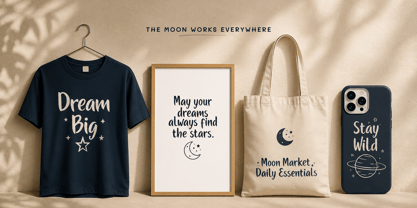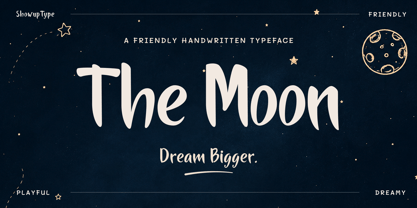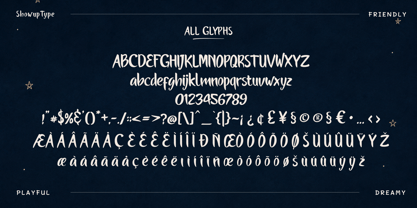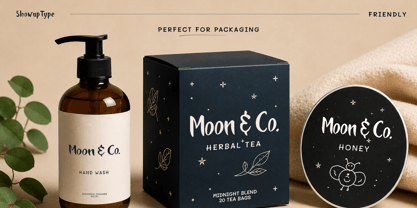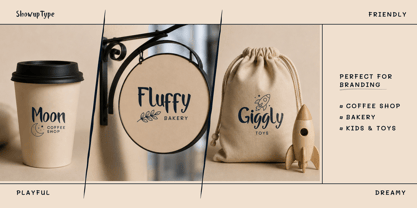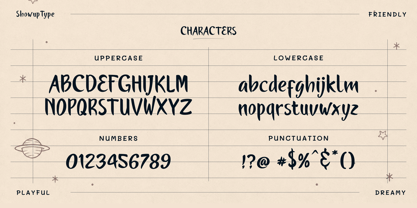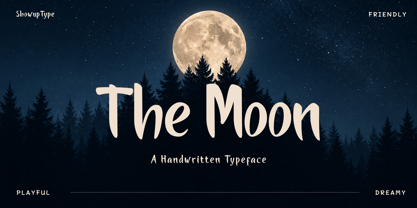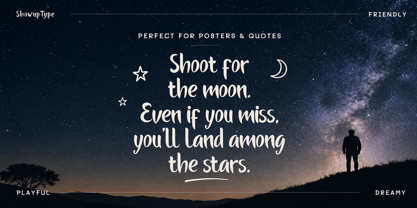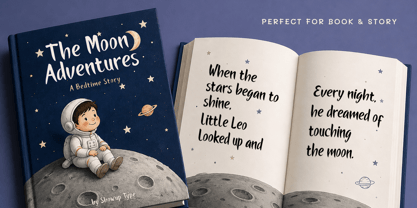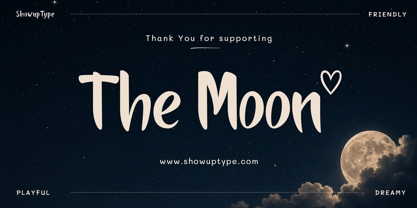
The Moon
by Showup! Typefoundry
The The Moon Font Family was designed by Aulia Rahman and published by Showup! Typefoundry. The Moon contains 1 styles. More about this family
The Moon is a warm and playful handwritten typeface inspired by peaceful moonlit nights. Soft curves, natural strokes, and a relaxed rhythm give every word an approachable, handcrafted personality while keeping the text clear and easy to read. Its friendly character works beautifully for branding and logos, children’s books, packaging, greeting cards, invitations, social media graphics, posters, merchandise, café identities, and website headers. Choose The Moon when a design needs to feel cozy, cheerful, authentic, and memorable.
Designers: Aulia Rahman
Foundry: Showup! Typefoundry